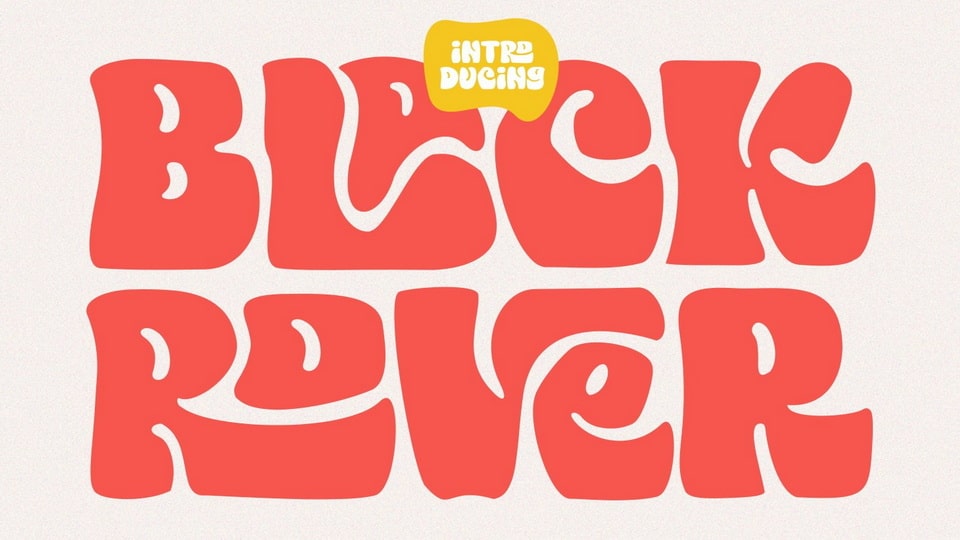
Download Black Rover font a bold vintage-style display typeface with strong character and soft features. Black Rover is a very versatile font that works great in large.